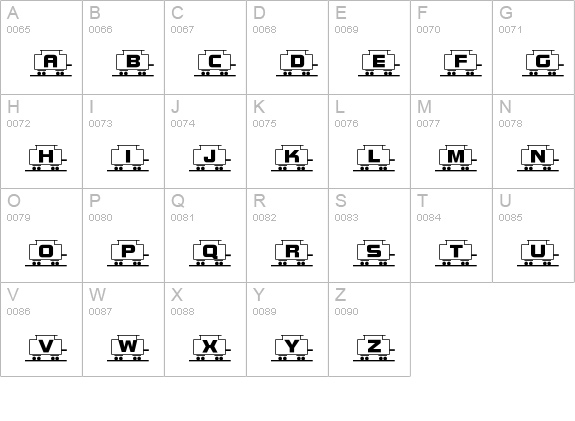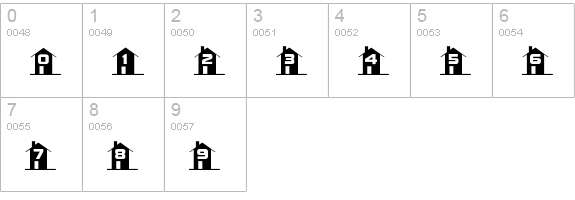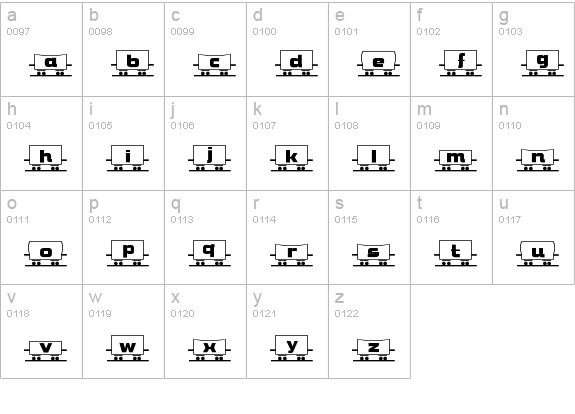
TQF_FreightTrain Font Details
TQF_FreightTrain font is a bold and powerful typeface that evokes the spirit of industrial strength and ruggedness. With its strong and sturdy letterforms, this font is perfect for conveying a sense of strength and reliability in your designs. Designed with meticulous attention to detail, TQF_FreightTrain captures the essence of a freight train hurtling through the countryside. The letterforms are inspired by the angular and geometric shapes found in locomotive designs, giving the font a unique and distinctive look. TQF_FreightTrain font is not only visually striking, but it also offers excellent legibility, making it suitable for a wide range of design projects. Whether you're creating bold headlines, eye-catching posters, or impactful logos, this font will make your message stand out from the crowd. As an added bonus, TQF_FreightTrain font is freely available to download at FontsMarket.com. This means that you can easily access and use this powerful typeface in your projects without any restrictions. Whether you're a professional designer or a hobbyist, the availability of this font for free allows you to unleash your creativity without any limitations. So why wait? Download TQF_FreightTrain font today and take your designs to the next level. With its bold and rugged aesthetic, this font is sure to make a lasting impression and add a touch of industrial strength to your projects. Don't miss out on the opportunity to harness the power of TQF_FreightTrain font – it's the perfect choice for those seeking a typeface that combines strength, reliability, and a touch of industrial charm.